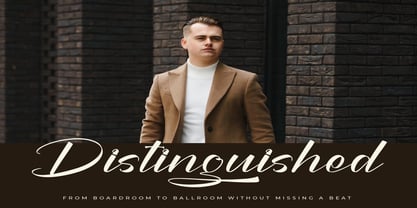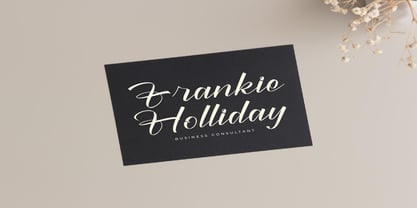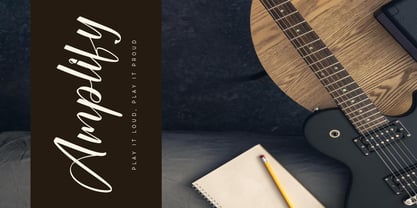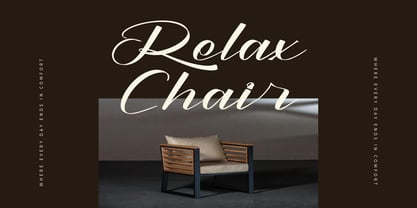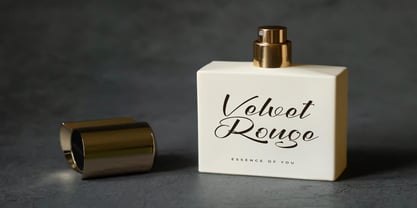
Racheli Claudia
by Letterena Studios
The Racheli Claudia Font Family was designed by Heru Utama Putra and published by Letterena Studios. Racheli Claudia contains 1 styles. More about this family
Racheli Claudia – Modern Bold Script Font , from Letterena, is a Luxury Script font, suitable for any projects such as: logos, branding projects, homeware designs, product packaging, mugs, quotes, posters, shopping bags, t-shirts, book covers, name card, invitation cards, greeting cards, label, photography, watermark, special events, and all your other luxury and beautiful projects that need a Luxury Script taste.